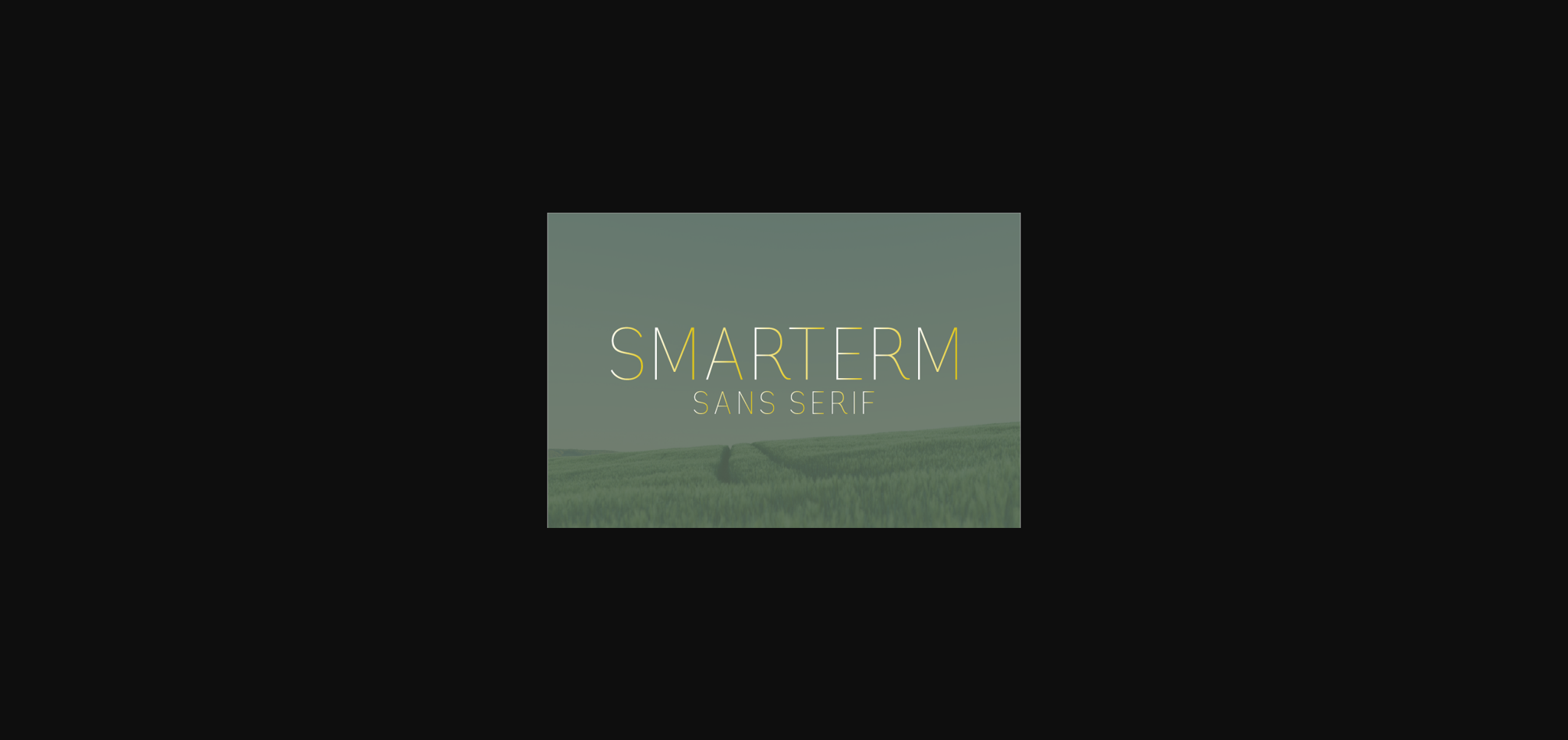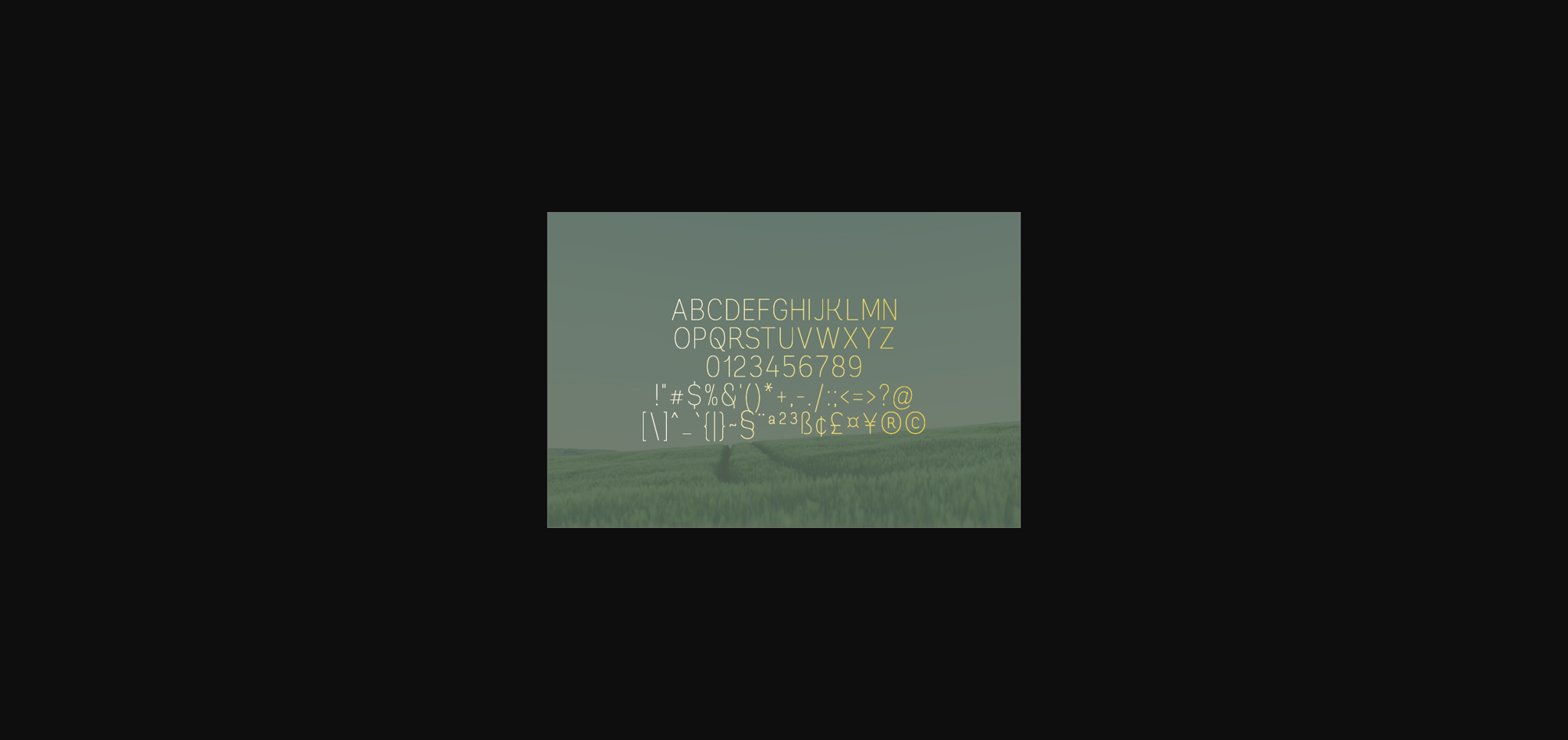
HomeSans Serif FontsSmarterm Font Sans Serif Fonts Smarterm Font FacebookXPinterestWhatsApp 1 of 4 ... Smarterm Font Poster 2... Smarterm Font Poster 3... Smarterm Font Poster 4... About Smarterm Font Smarterm is a simple and casual sans serif font with an undeniably clean feel. With its neat and beautiful arrangement of letters, this typeface will look outstanding in both formal and non-formal designs. DOWNLOAD NOW People also explored Figuta Font Stringless Font Grateful Sound Bubble Dasting Font Hello Flarinda Font Ramanisa Font Bold Font Love Moment Font 417 0 TagsSmarterm Font Previous articleStephany FontNext articleKerushty Font LEAVE A REPLY Cancel reply Comment: Please enter your comment! Name:* Please enter your name here Email:* You have entered an incorrect email address! Please enter your email address here Website: Save my name, email, and website in this browser for the next time I comment. Personal Use Free Unicorn Kids Personal Use Free Read more about this font Valentine Chips Personal Use Free Read more about this font Sunshine Tropical Font Personal Use Free Read more about this font Rafika Personal Use Free Read more about this font BLOG Free Fonts Risk: Why Free Fonts Can Be Dangerous for Designers Free Fonts Risk: Why Free Fonts Can Be Dangerous for Designers Using free fonts is a common practice in web and graphic design. However, the... How to Cut Any Font on Cricut: Convert a Font to SVG (Free) The 10 Best Handwriting Fonts to Add Personality to Your Designs Elegant Wedding Invitation Fonts – Handwritten & Script Fonts